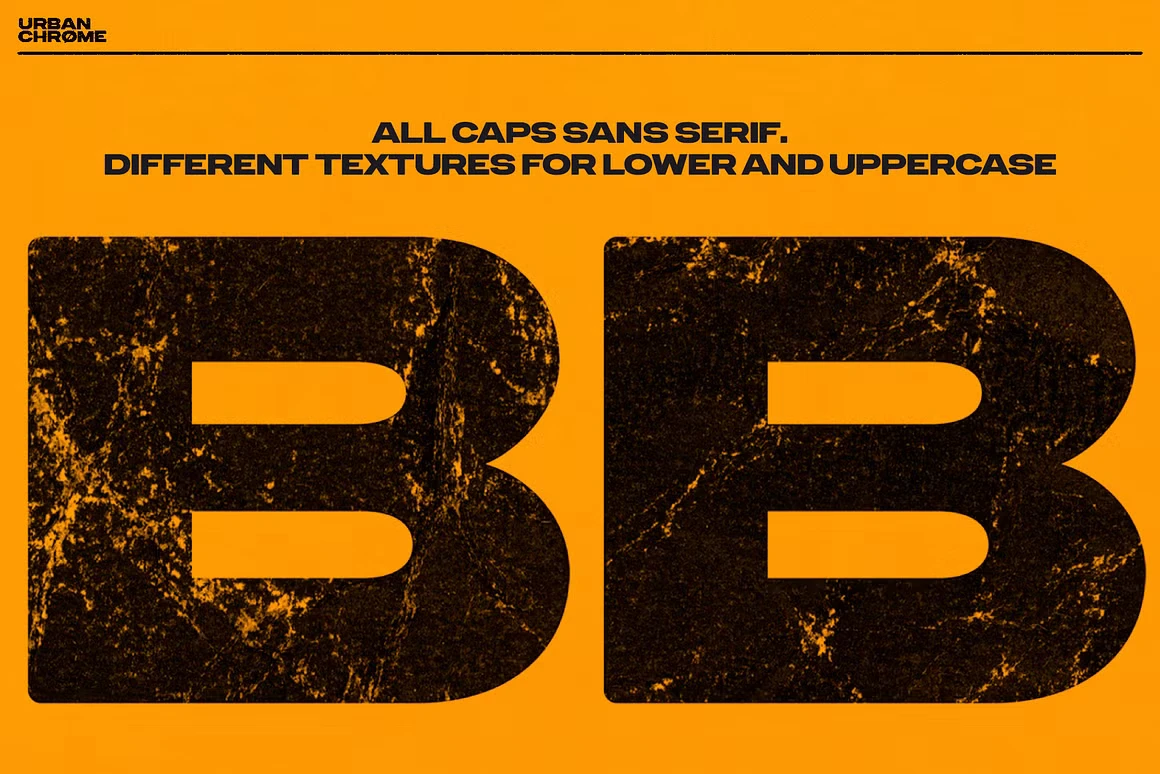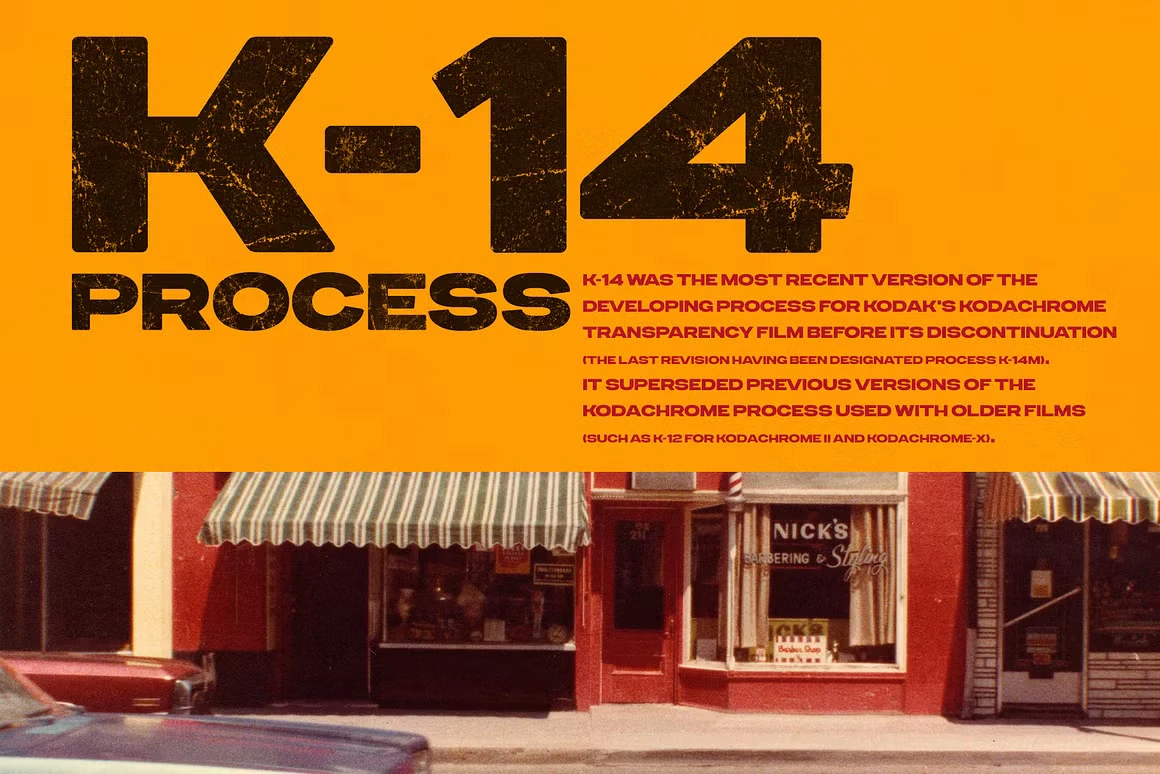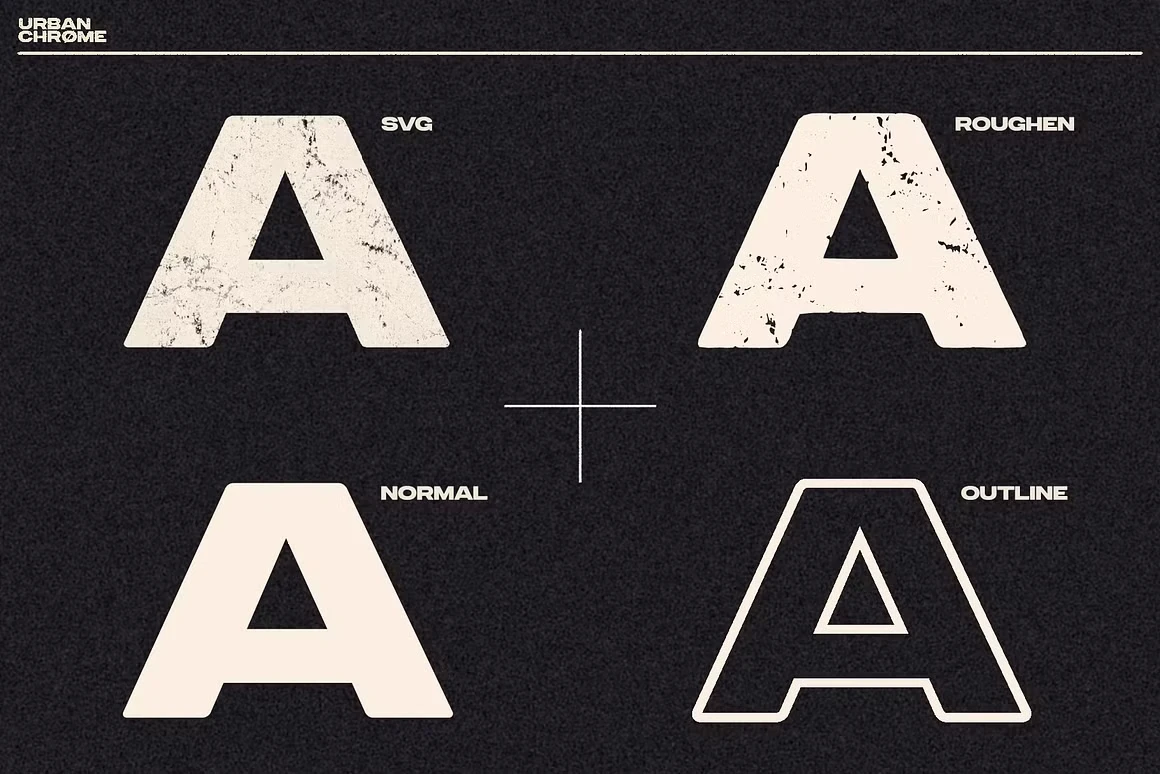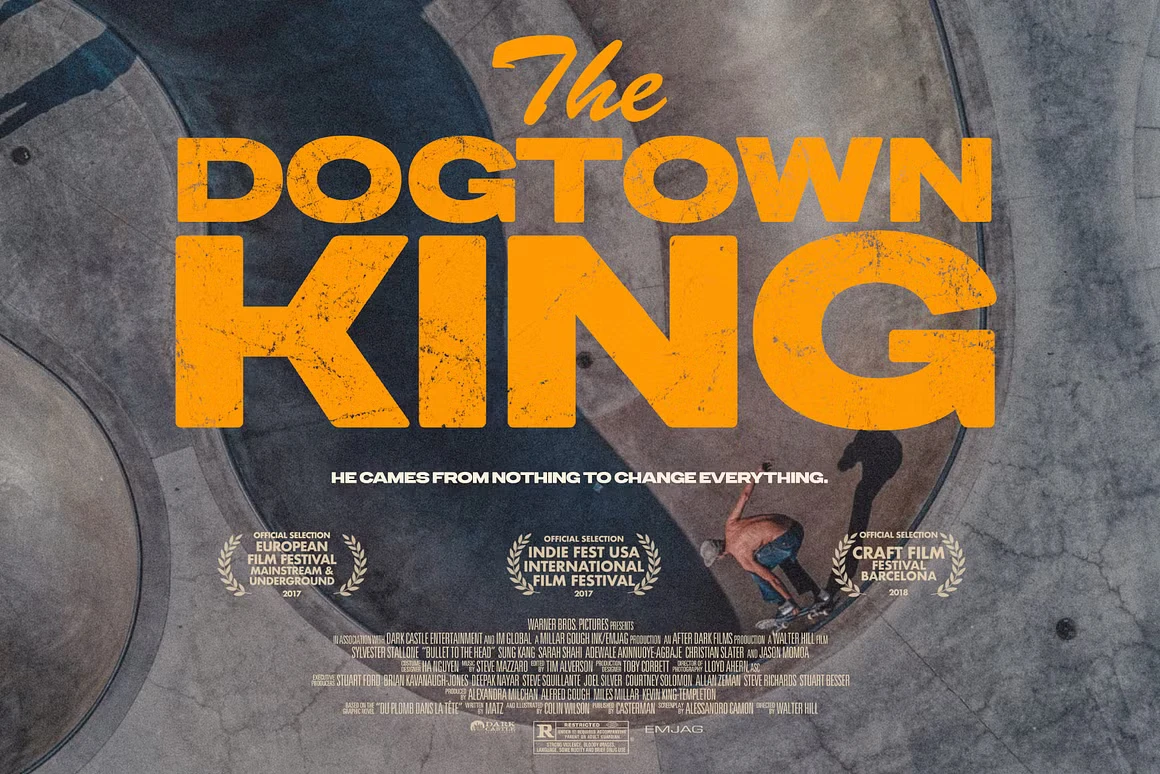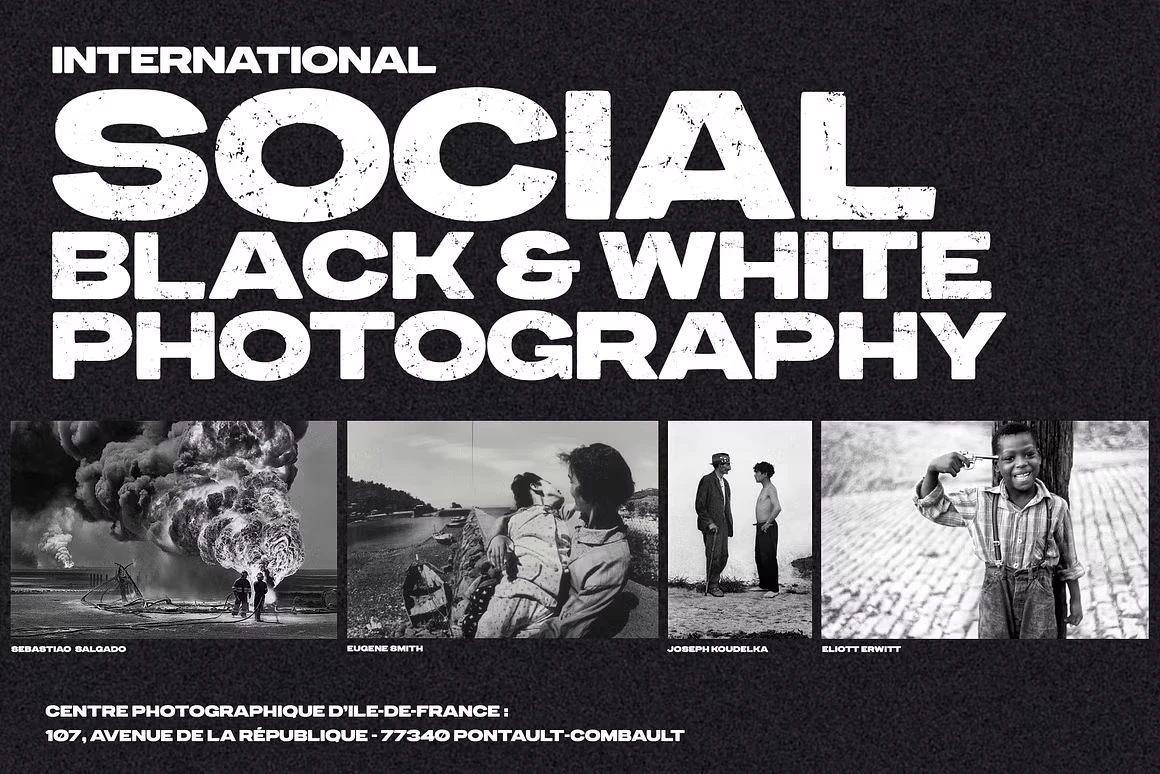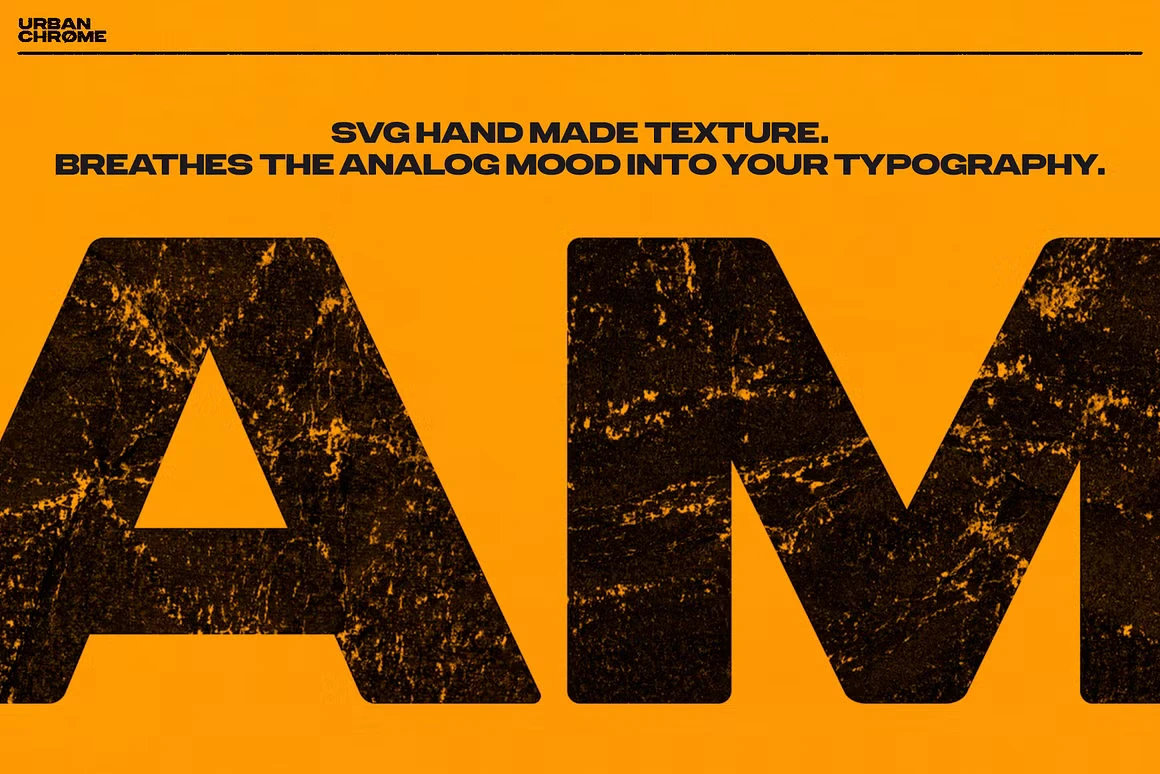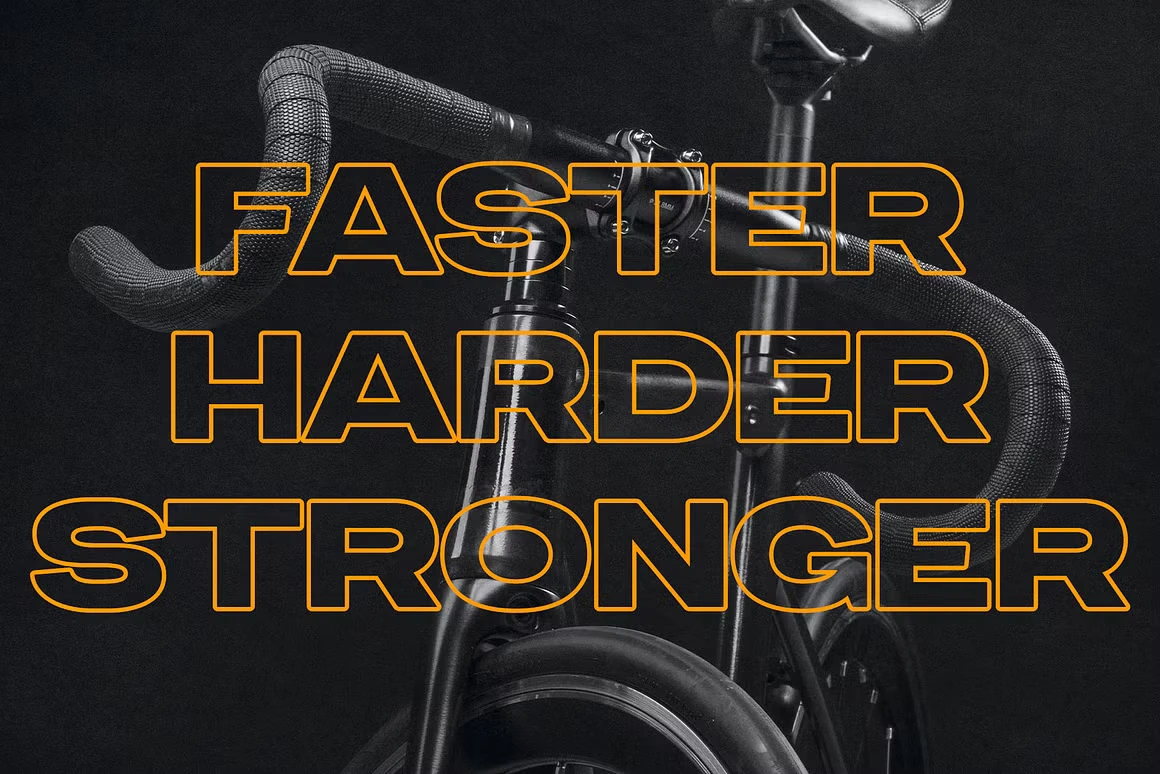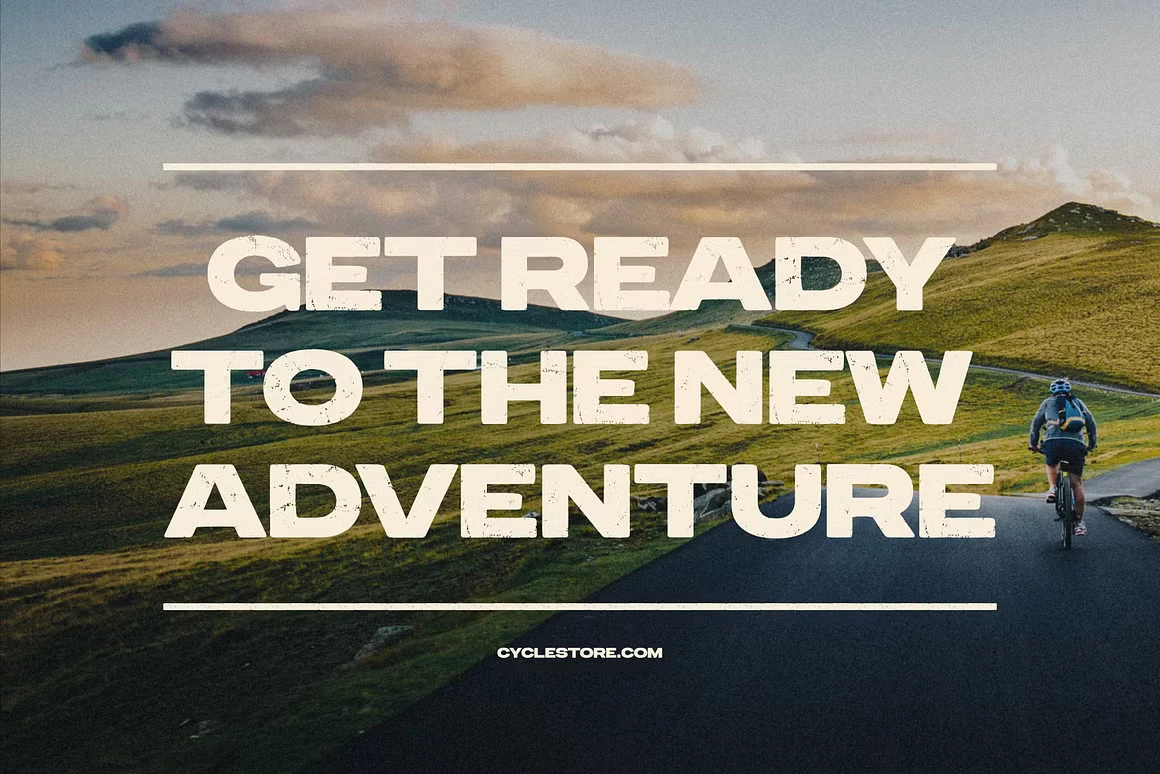
Urban Chrome Font Family
Urban Chrome is a trendy all-caps cinematic sans-serif typeface inspired by 1980s multimedia-era typography, reminiscent of vintage VHS packaging. Designed for bold visuals with a nostalgic edge. Ideal for movie titles, party flyers, exhibition branding, and action-themed advertisements. Comes in three styles: Clean, Rough with hand-made grunge texture, and Outline. Built to bring retro energy and standout presence to any display design.
Urban Chrome
Styles included • Regular • Regular Outline • Regular Rough